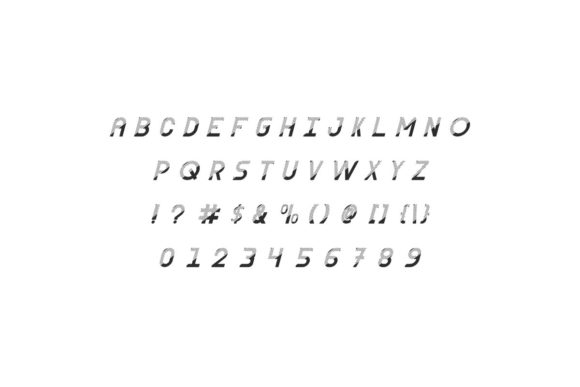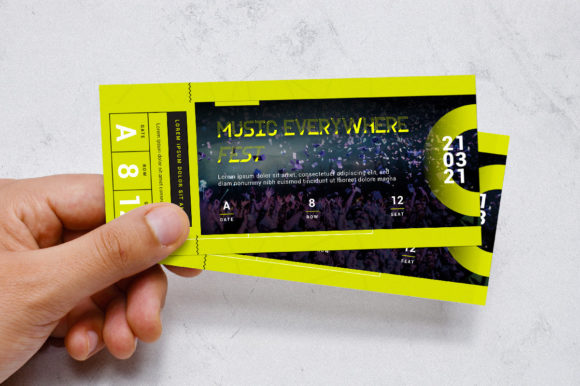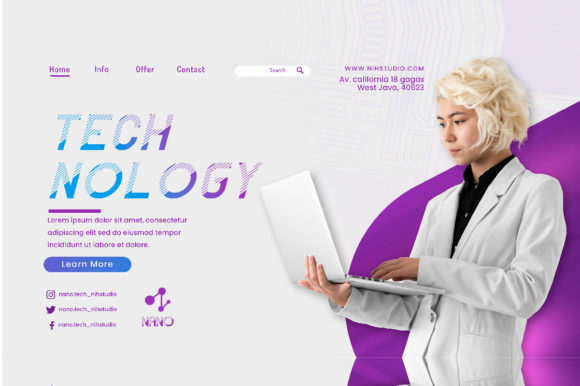
Introduction to Offsett Font
Have you ever been stuck on a design project, staring at a blank canvas, and suddenly, a spark of creativity hits you? That’s exactly what happened to designers everywhere when they discovered the Offsett Font. This futuristic display font is a game-changer for any creative project, from branding and logo design to signage and brochures.
With its unique, high-quality design, the Offsett Font is perfect for designers who want to make a statement. Its transparent background and sleek lines make it a versatile design resource that can be used in a variety of settings. Whether you’re working on a high-profile branding project or a personal creative endeavor, the Offsett Font is sure to impress.
Key Features of Offsett Font
• High-quality, free design resource ideal for creative projects
• Unique, hand-drawn design with a transparent background for versatility
• Includes a large character set with over 200 glyphs for extensive use
• Resolution-independent, scalable design for use in various sizes and resolutions
• Comes in a single size, making it easy to use across different creative projects
Honest Review: Offsett Font
I recently stumbled upon the Offsett Font and I must say it’s been a game-changer for my creative projects. The high quality of this font has been a great addition to my design resources.
• ✨ Unique style: The Offsett Font has a distinctive look that sets it apart from other fonts. Its unique style makes it perfect for adding a touch of creativity to any project.
• ✨ Transparent background: The font’s transparent background makes it easy to use in a variety of design scenarios, from digital to print.
• ⚠️ Limited font sizes: While the Offsett Font is available in a range of font sizes, it’s not as extensive as some other fonts on the market.
• ⚠️ May not be suitable for body text: Due to its unique style, the Offsett Font may not be the best choice for body text. It’s better suited for headings and titles.
Overall, I’m really impressed with the Offsett Font. Its unique style, high quality, and free download make it an excellent addition to any designer’s resources. Just be aware of its limitations and use it accordingly.
The Offsett Font is a versatile design resource that can be used in a variety of creative projects, such as logos, brochures, and social media graphics. It’s also a great option for creating high-quality designs with a transparent background.